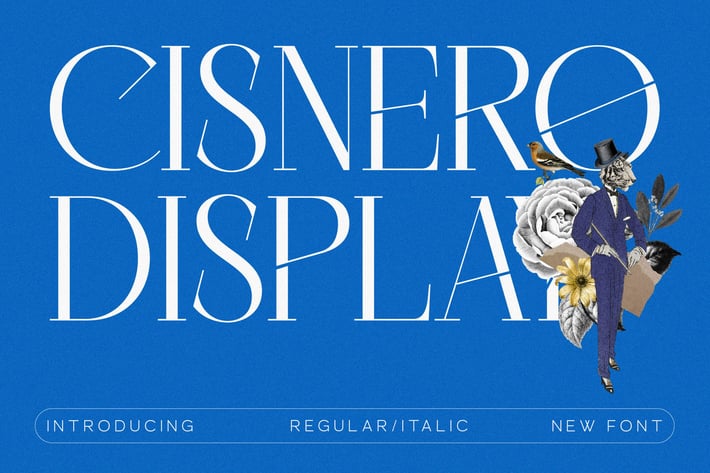
Cisnero New Font Display
Cisnero Display is a refined modern serif font that blends elegance, precision, and editorial sophistication. Designed with sharp serifs, high contrast strokes, and artistic proportions, this typeface brings a luxurious and contemporary look to any layout. Perfect for designers aiming for a clean yet expressive visual style, Cisnero Display elevates branding, posters, and digital compositions with a distinct high-fashion flair.
High-contrast modern serif style
Stylish editorial letterforms with artistic detailing
Crisp shapes for a luxurious, professional appearance
Includes both Regular and Italic styles
Posters & editorial layouts
Luxury branding and identity design
High-fashion promotional materials
Social media graphics
Packaging & product labels
Creative digital projects
Invitations and elegant title compositions
Bold, elegant, and exquisitely modern — Cisnero Display delivers timeless serif sophistication for standout designs.